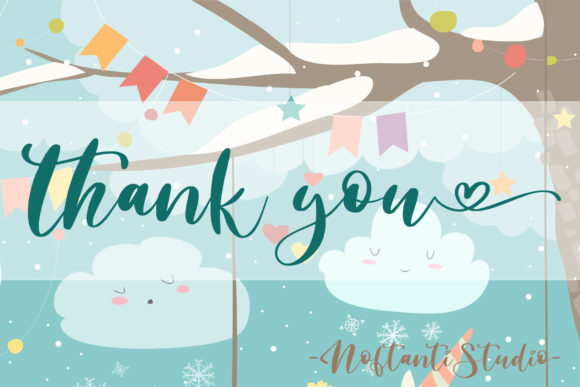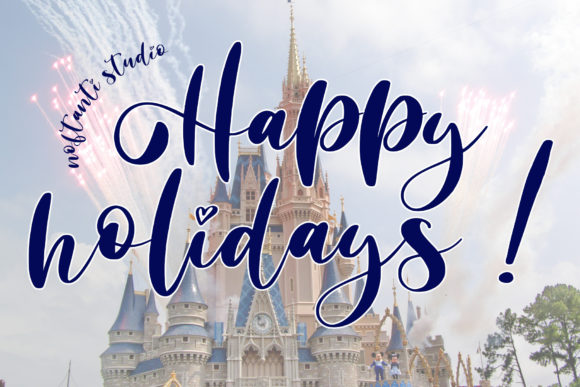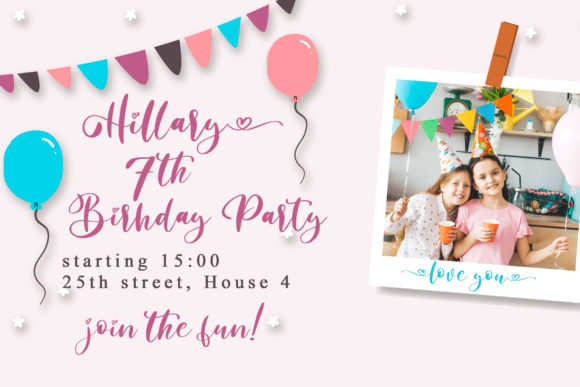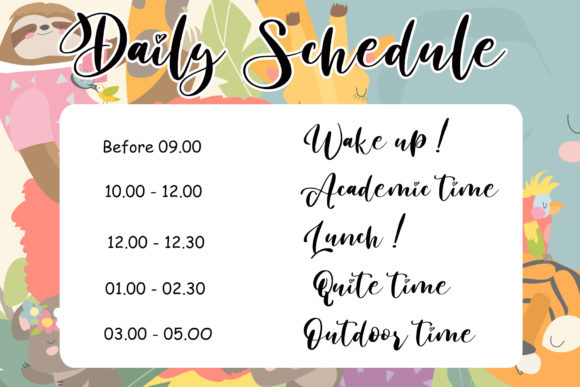
About Inggitha Font
Inggitha is a beautiful and flowing handwritten font. This versatile script font has a wide range of applications ranging from greeting cards to kids’ crafts, and is guaranteed to add a sweet touch to your next design.